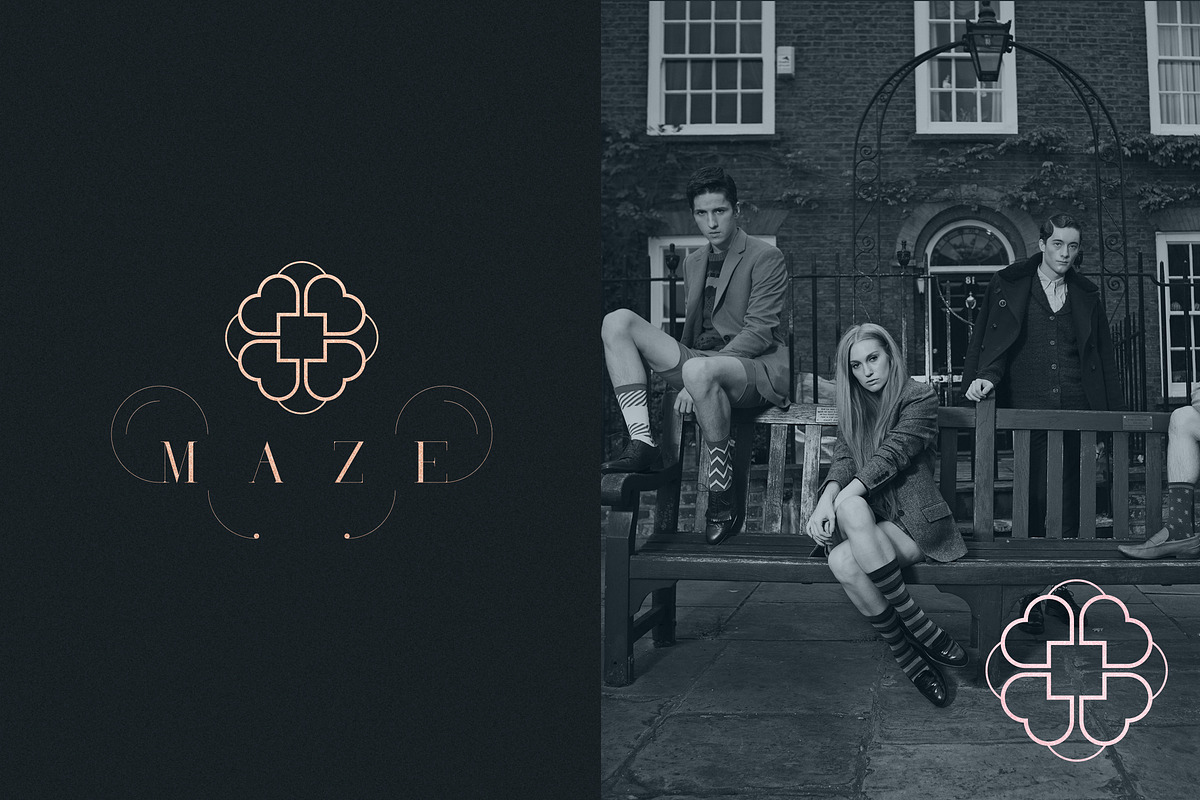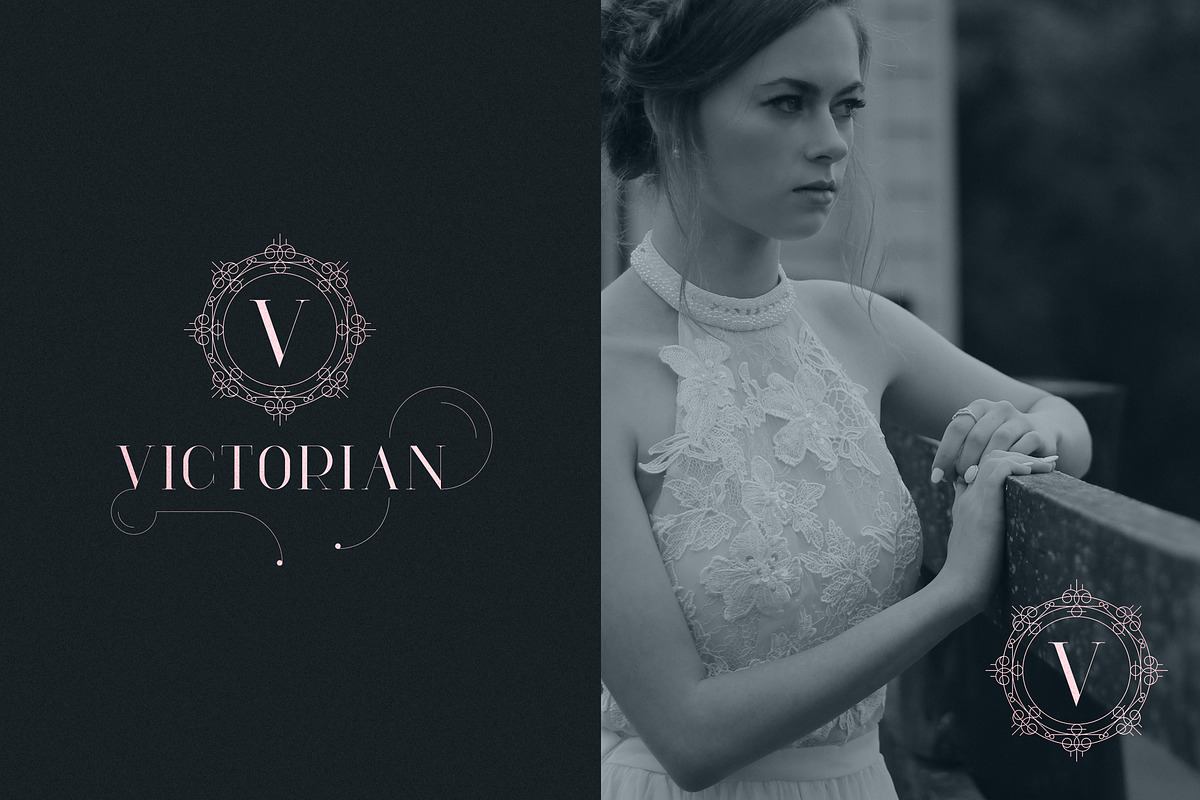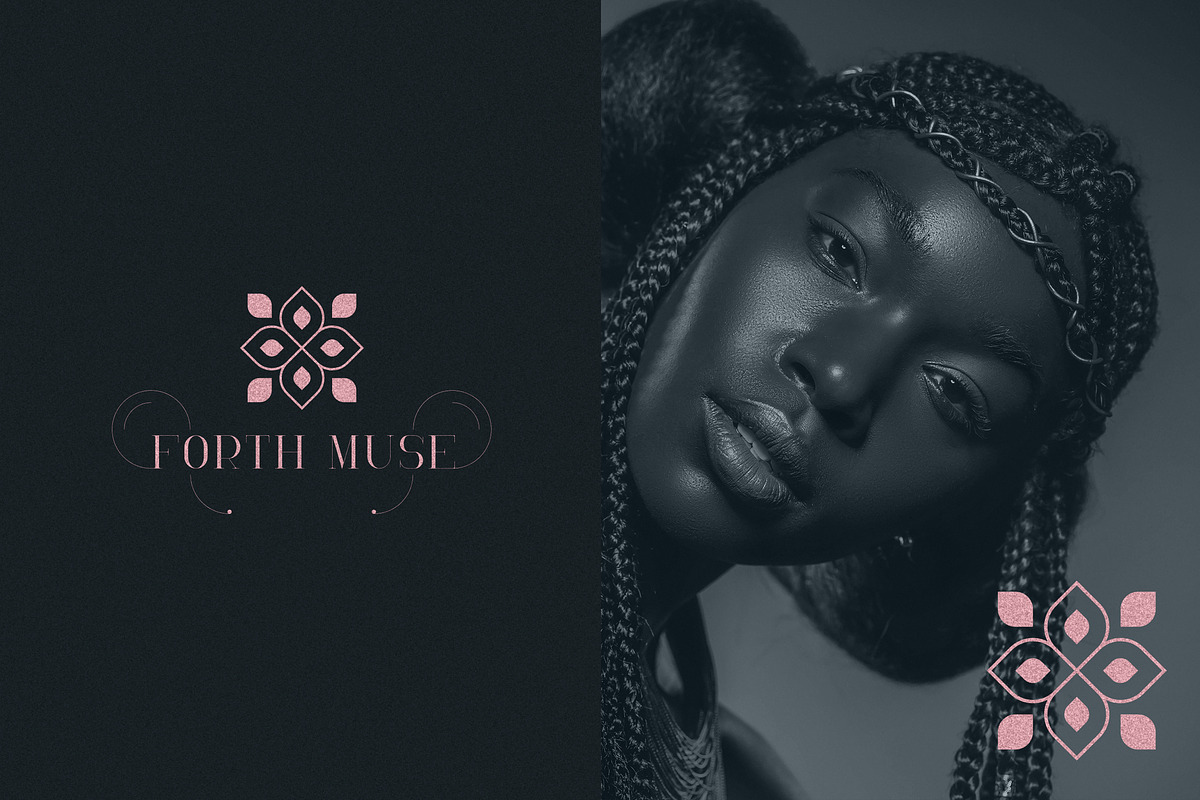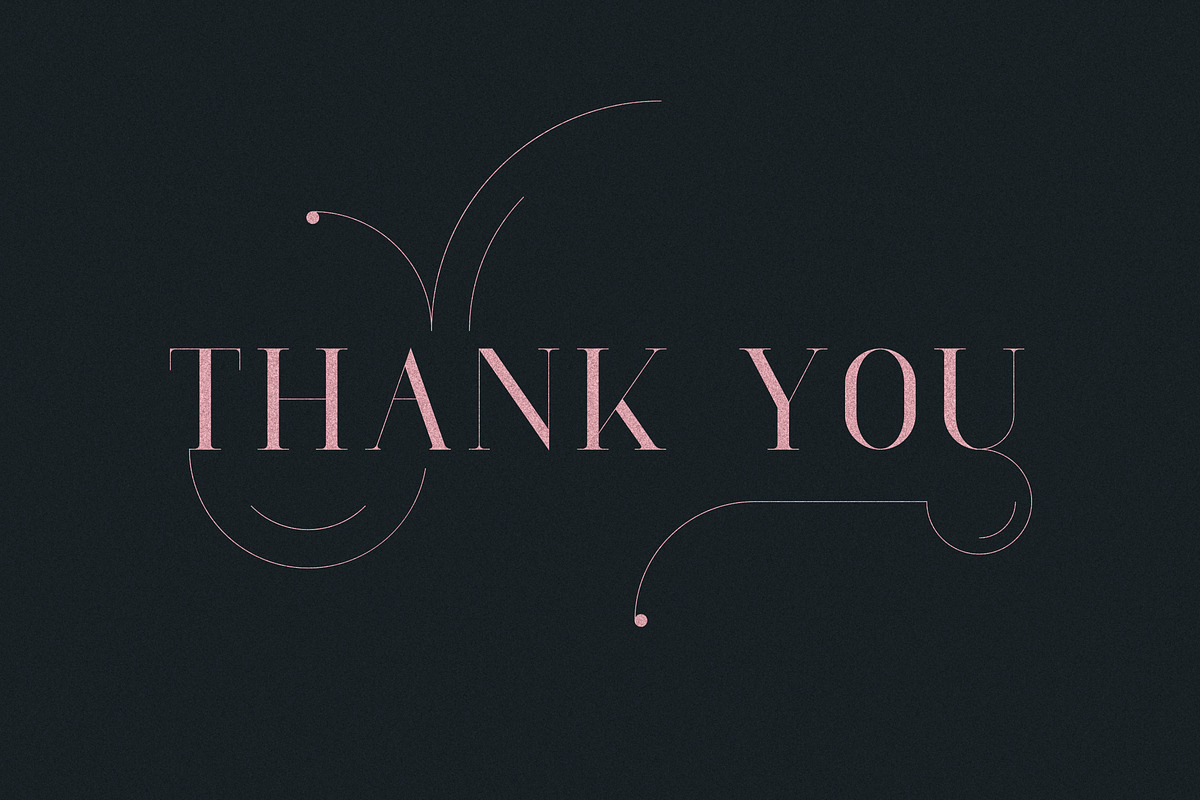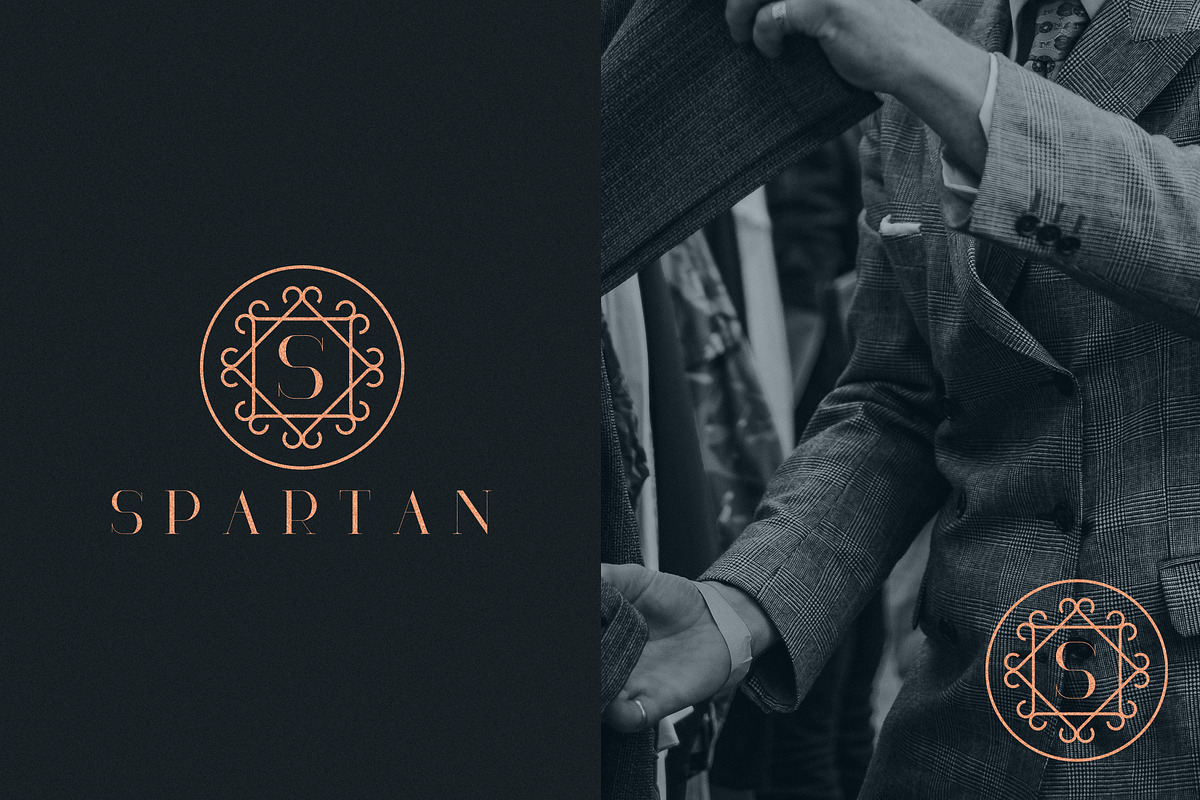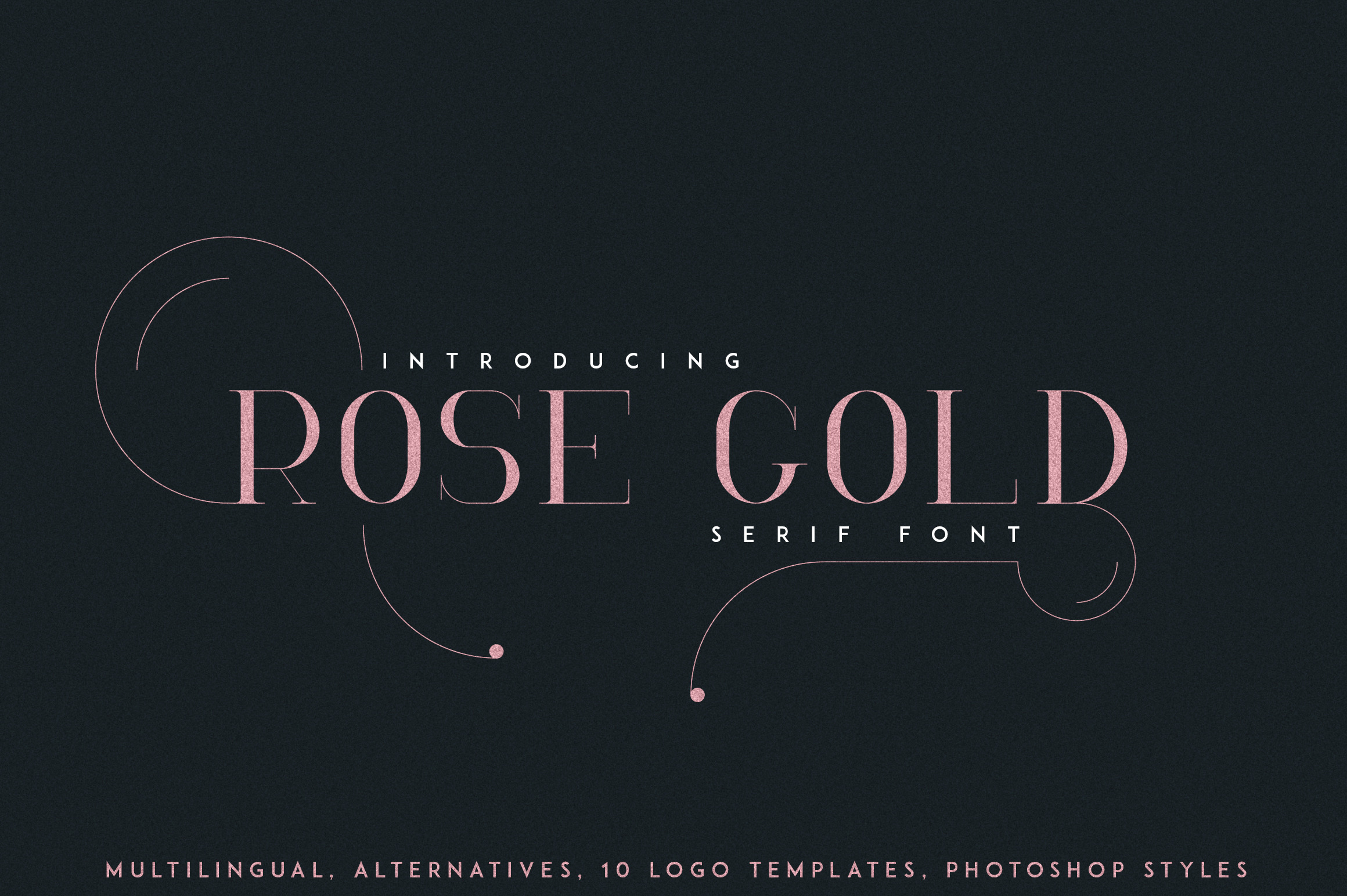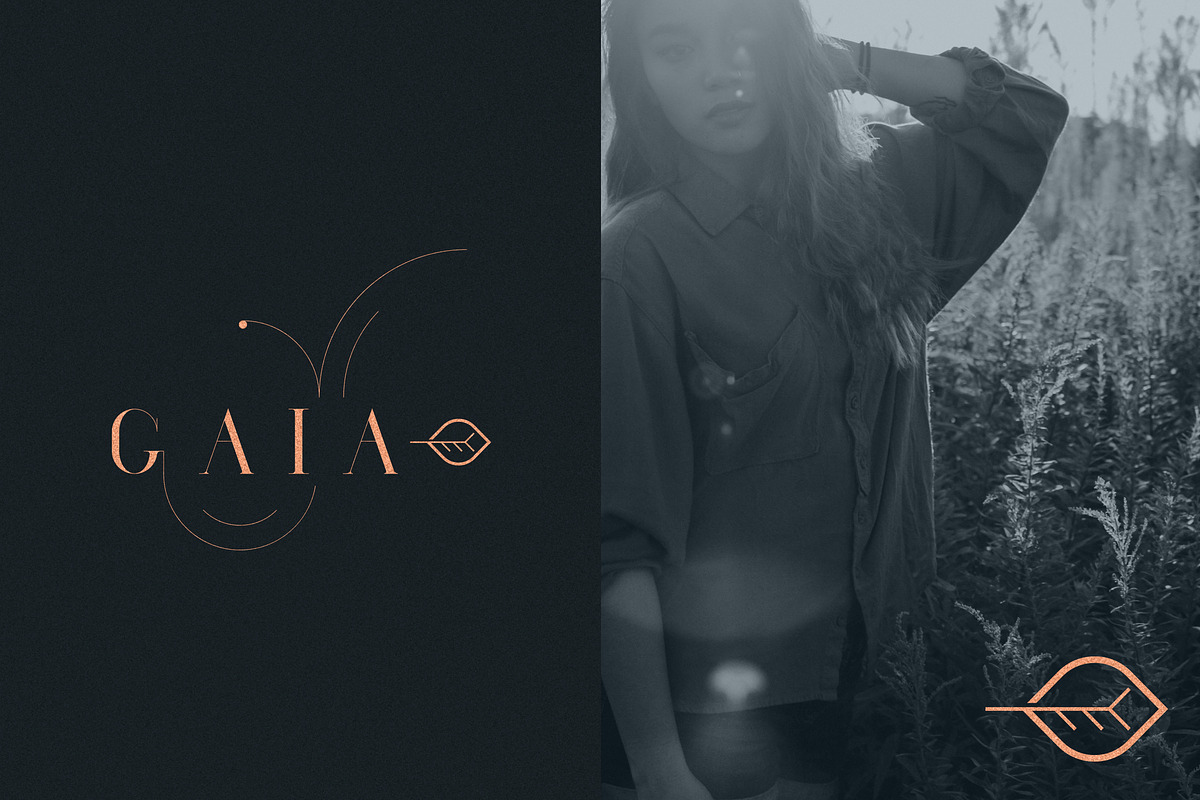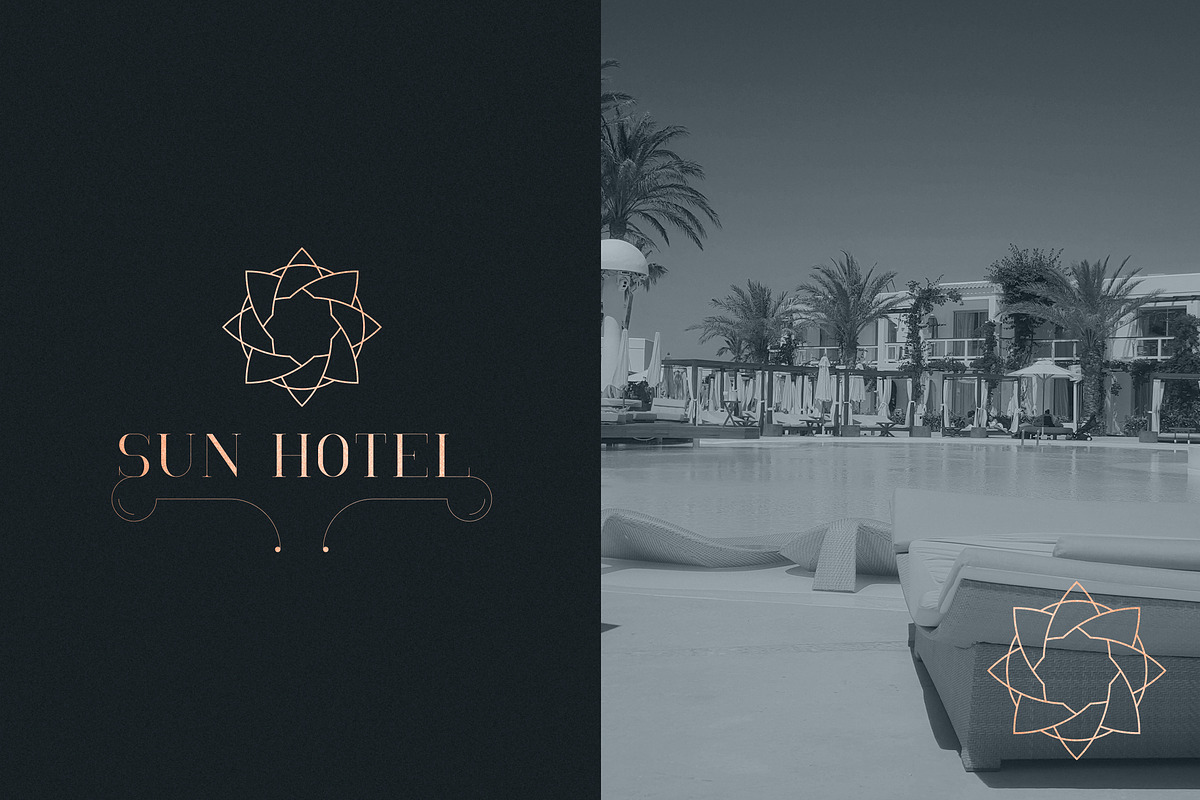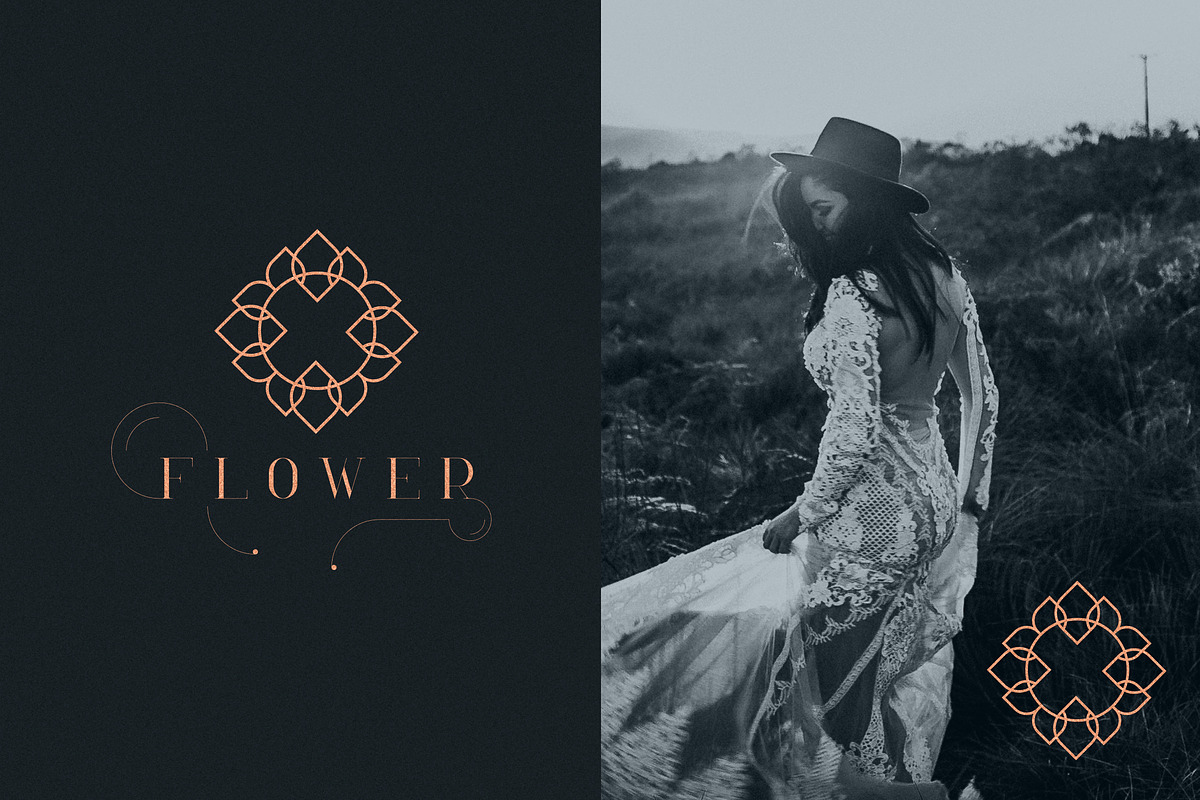
RoseGold Serif font + 10 Logos
RoseGold serif font and Logo Template
RoseGold is elegant serif font with 7 alternative glyphs for each character. It's a very versatile font that works great in large and small sizes. RoseGold is perfect for branding projects, home-ware designs, product packaging, wedding invitations, magazine headers - or simply as a stylish text overlay to any background image.
- Uppercase,numeral,punctuation & Symbol
- 7 Alternatives for every uppercase character
- 10 luxury premade logo templates
- 9 Shinny Photoshop Styles to enchant every design